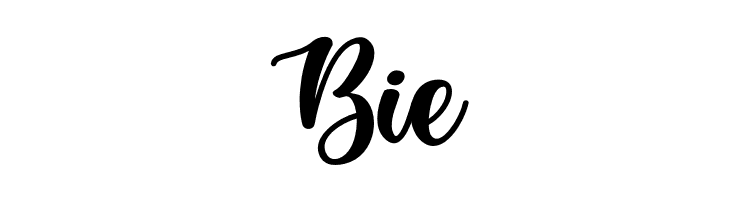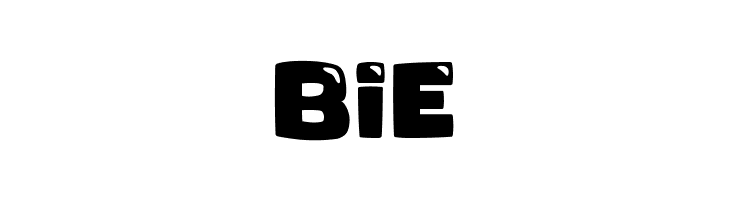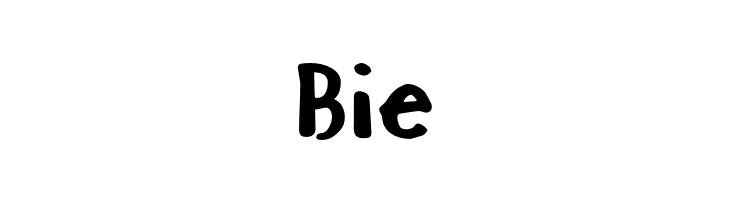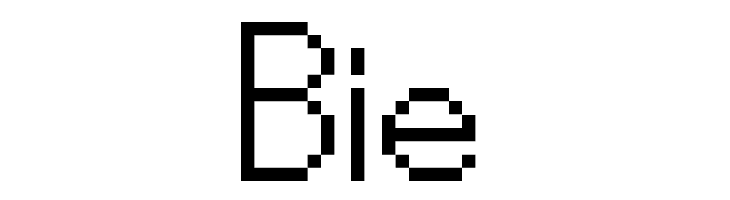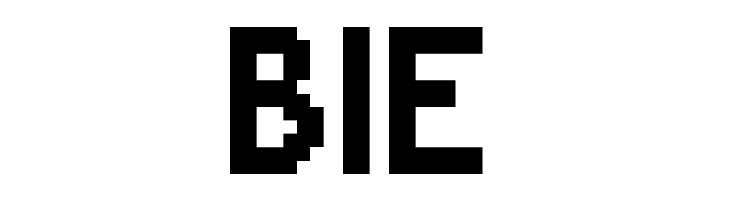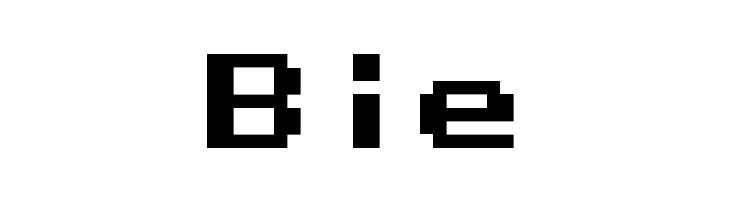
A bold, expressive script font with a flowing, handwritten style.
A bold, high-contrast font with elegant curves and a modern-classic blend.
A bold, pixelated font with a retro video game aesthetic.
A pixelated, monospaced font with a retro, digital aesthetic.
A playful, handwritten-style font with bold, rounded characters.
A bold, playful font with chunky, block-like characters and a dynamic feel.
A bold, dynamic brush script with expressive, fluid strokes and a handmade feel.
A dot matrix font with a digital, pixelated style.